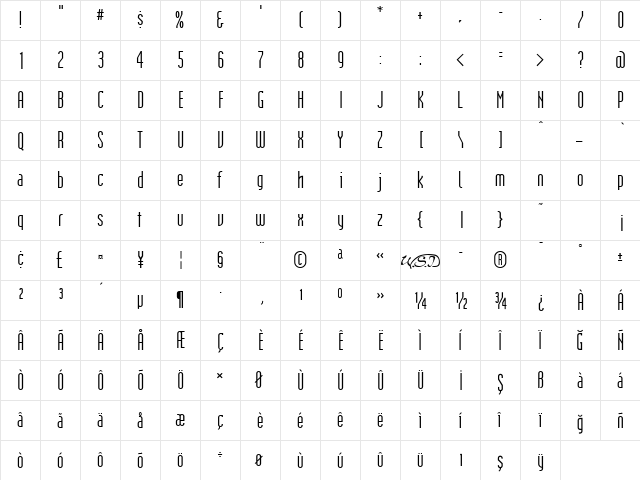
TrSah Institution Regular
Design Context for TrSah Institution Typeface
TrSah Institution takes a measured approach to typography — its balanced proportions and neutral character make it a reliable workhorse for both digital and print work.